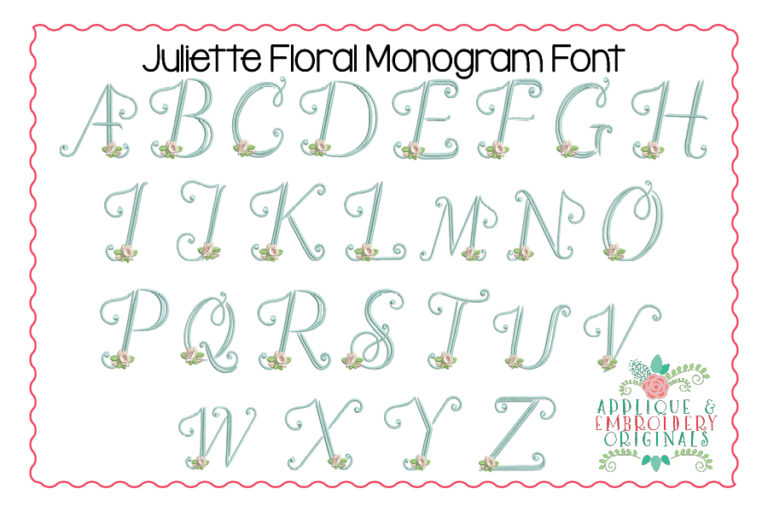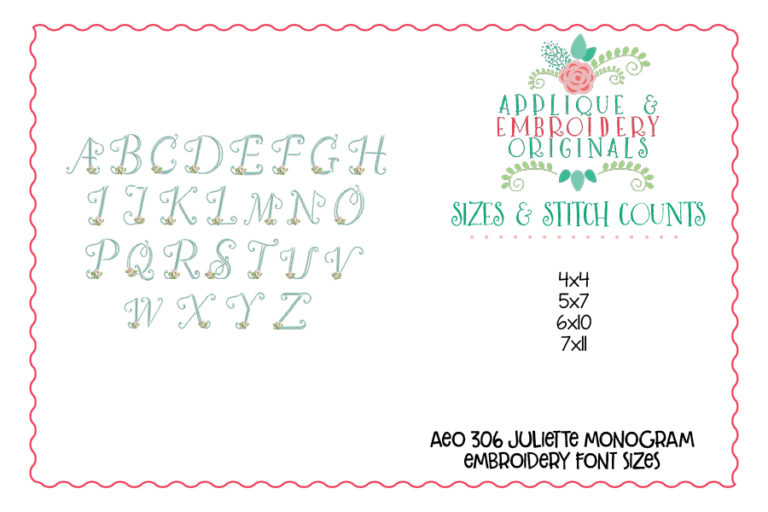
306 Juliette Floral Monogram Embroidery Font for embroidery machine. Perfect for your shirt, bag, towel or other item!
Designs comes in sizes 4×4, 5×7, 6×10 and 7×11. All letters include A-Z. All letters are satin stitch.